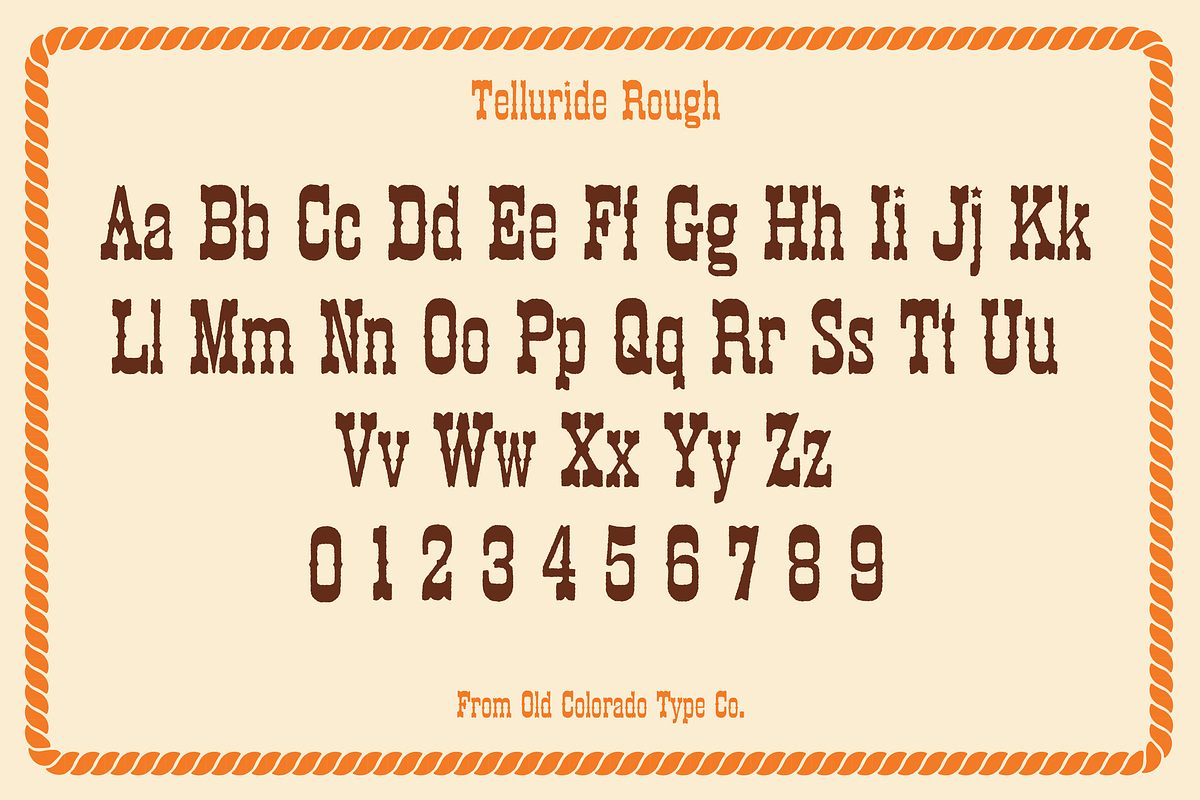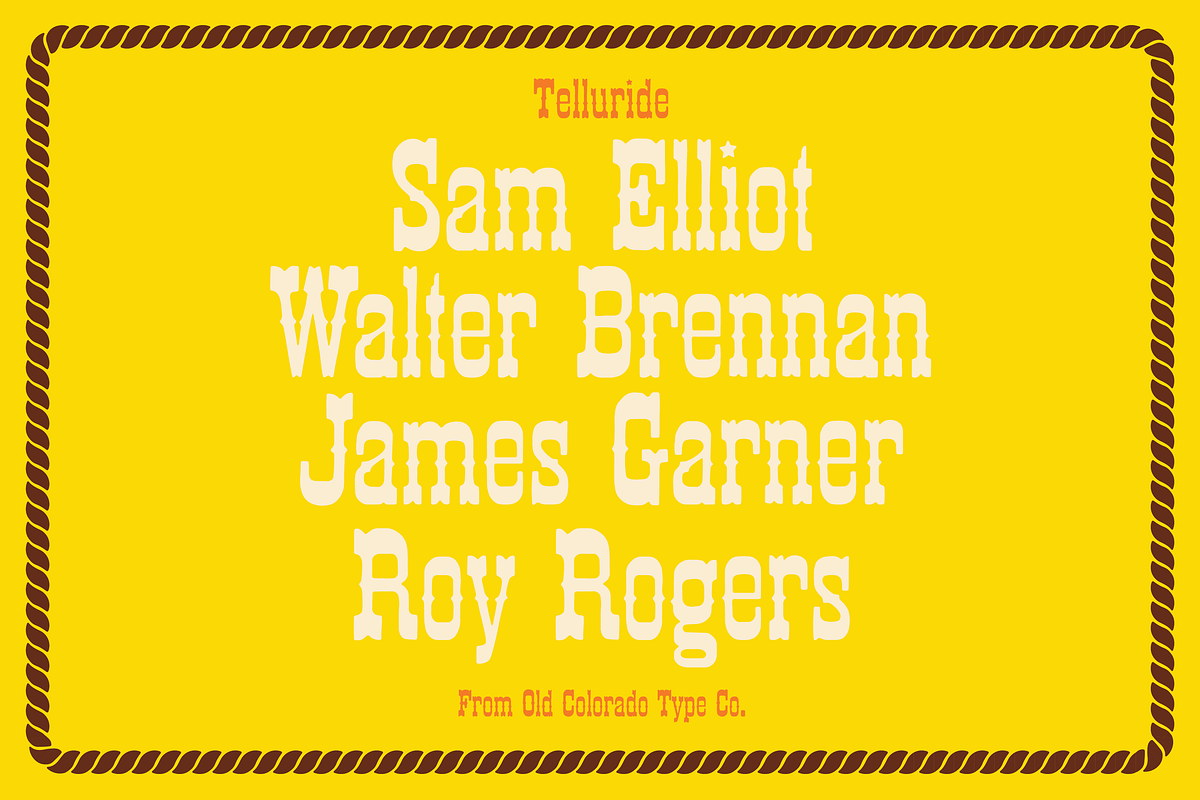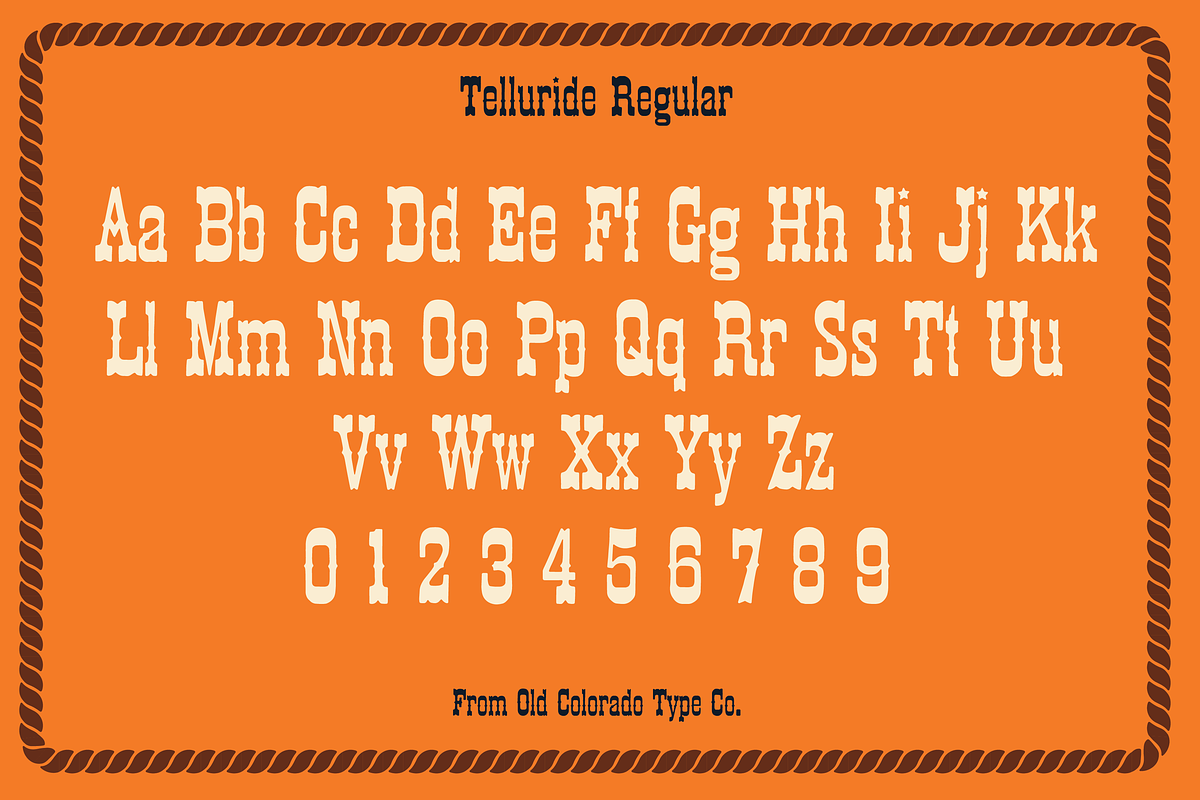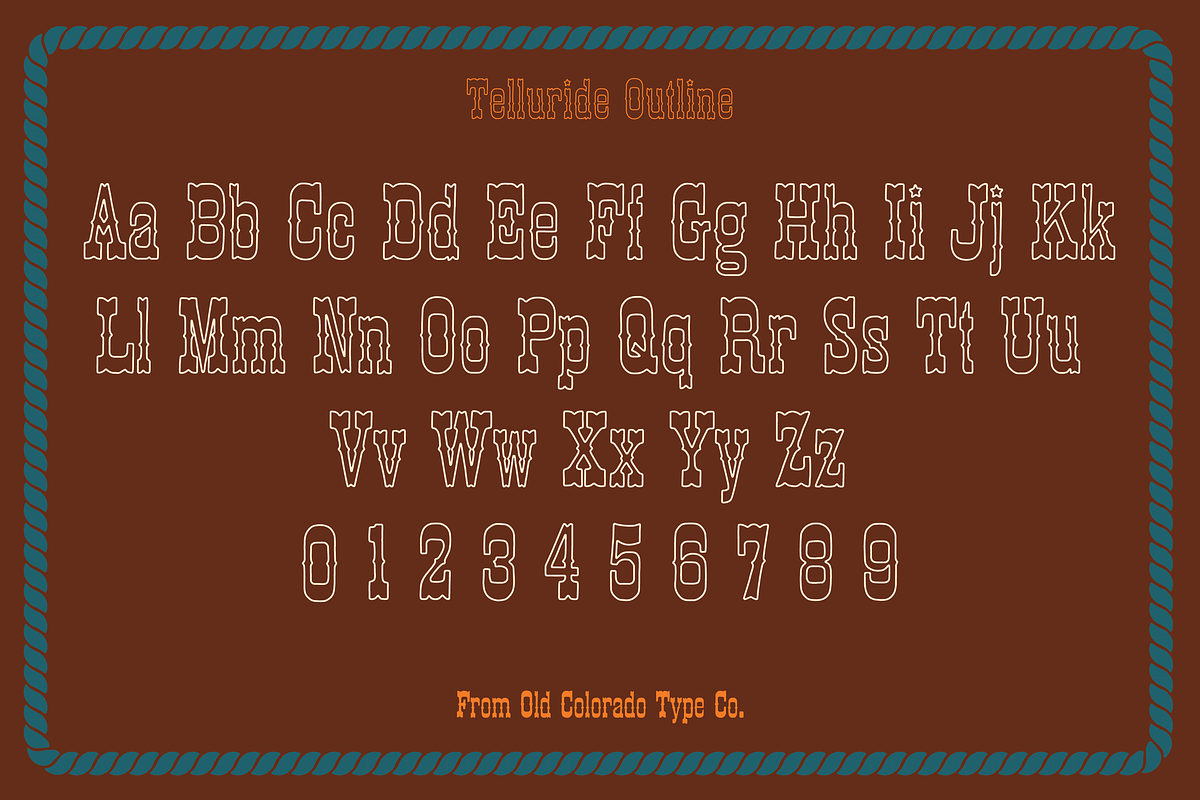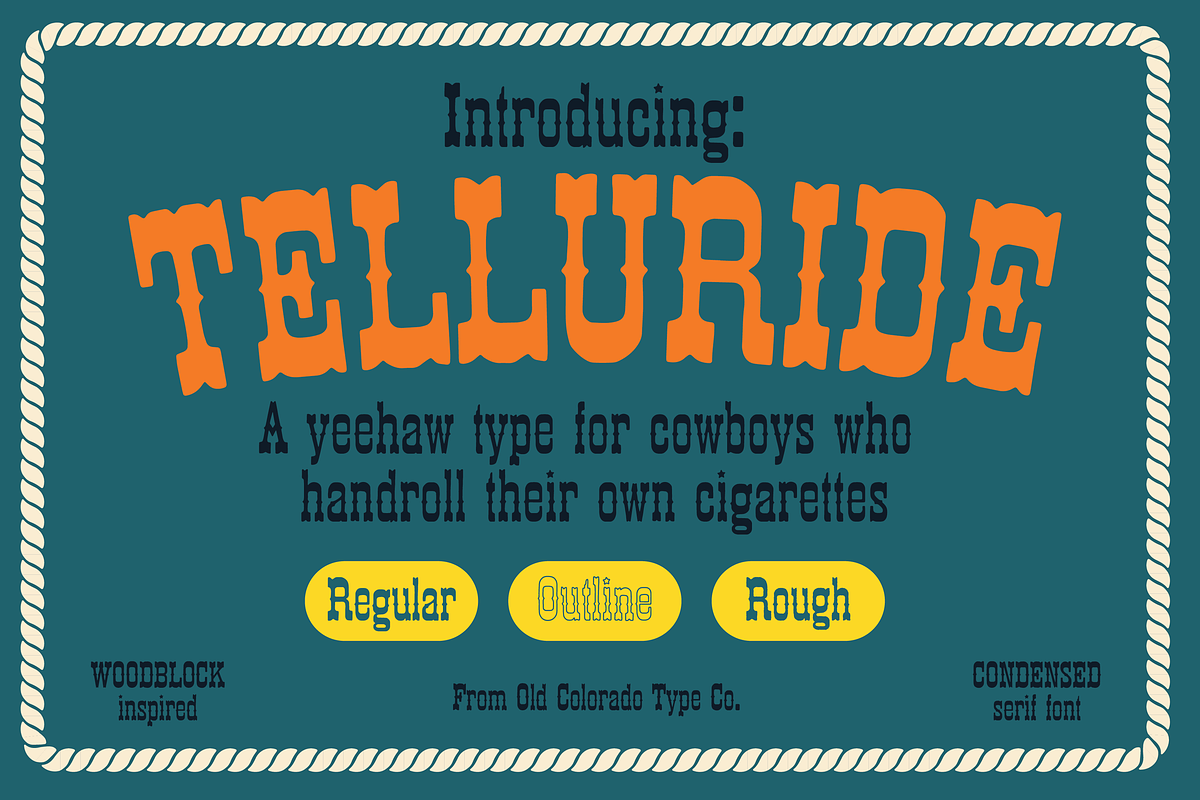
TELLURIDE by Old Colorado Type Co.
A rare condensed Western font. Comes with three versions: regular, outline, and rough. The rough version has just enough of a jagged edge to get a more "worn" feel. Inspired by vintage woodblock specimens.